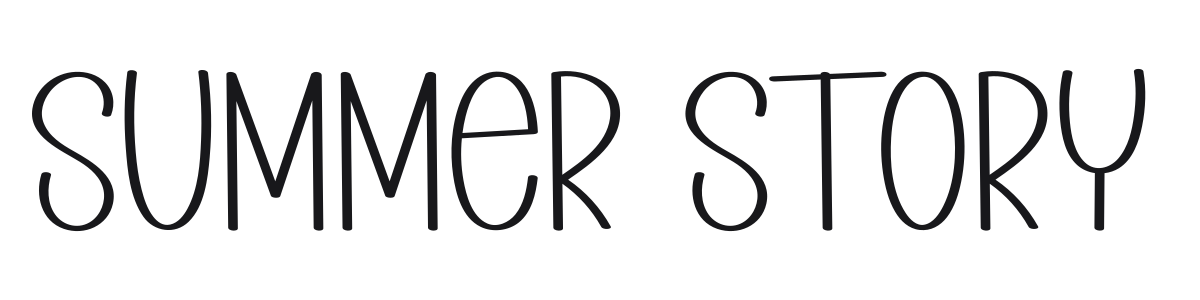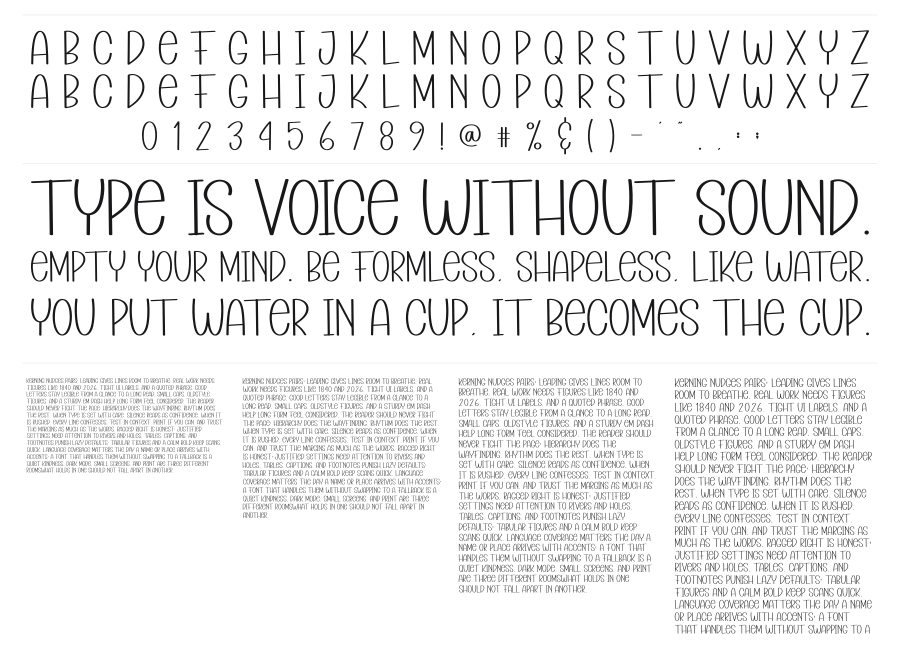
Summer Story
Summer Story is a tall, hand-drawn sans-serif with a casual, breezy personality. Its condensed proportions and slightly uneven strokes give it that personal, made-by-hand feel without tipping fully into script territory. It sits naturally on wedding stationery, product packaging, and social media graphics.